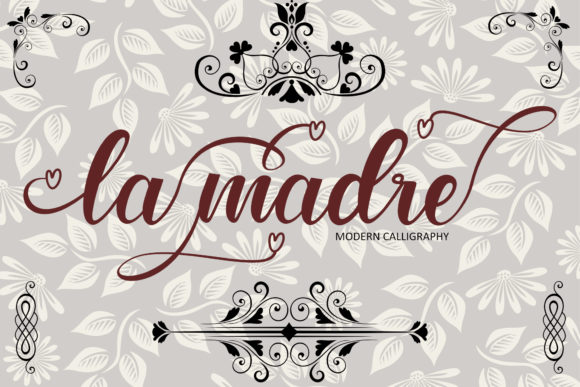
In a world where individuality and authenticity reign supreme, meet La Madre Font, the script sensation that will elevate your creative pursuits to extraordinary heights. Crafted with meticulous attention to detail, La Madre Font embodies the perfect harmony between classic elegance and modern flair. Its striking calligraphic roots, elegantly entwined with a refreshing contemporary twist, evoke a sense of timeless beauty that resonates with today's discerning audience.
Prepare to be swept off your feet as La Madre Font graces your projects with its enchanting allure. With its PUA-encoded brilliance, unleash a world of possibilities, effortlessly accessing a treasure trove of glyphs and swashes that will transform your designs into captivating masterpieces. Let La Madre Font ignite your imagination and propel your creative endeavors to unprecedented heights.
Embrace the allure of La Madre Font and embark on a typographic journey that will leave an indelible mark on your audience. Say goodbye to mundane fonts and embrace a new era of captivating storytelling. Let La Madre Font elevate your brand's identity, adding a touch of sophistication and charm that will set you apart from the ordinary.